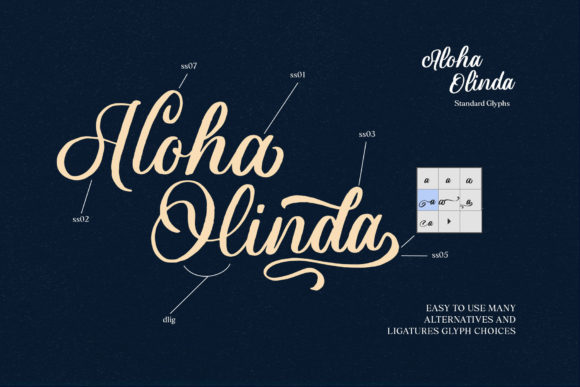
Aloha Olinda Font
db-ku.com - Script & Handwritten -- Aloha Olinda is a dazzling script font. This font is neatly crafted and highly detailed. Whatever the topic, this font will be a wonderful asset to your font library, as it has the potential to enhance any creation.